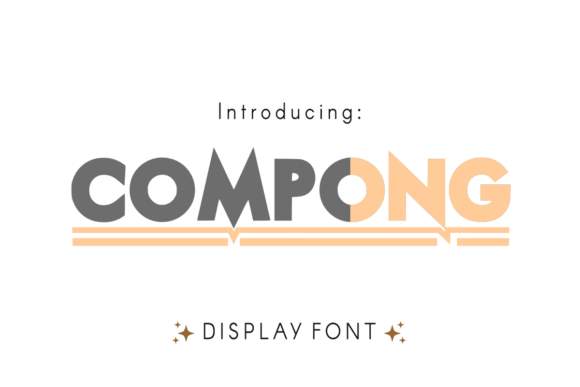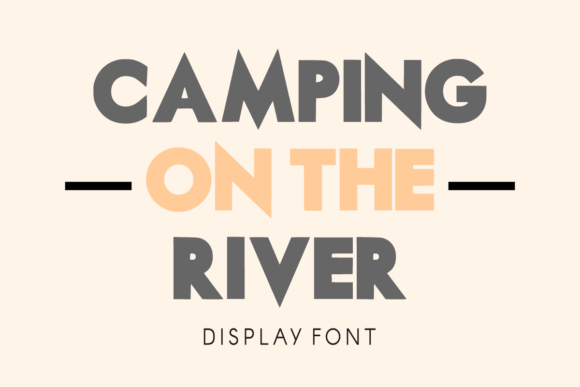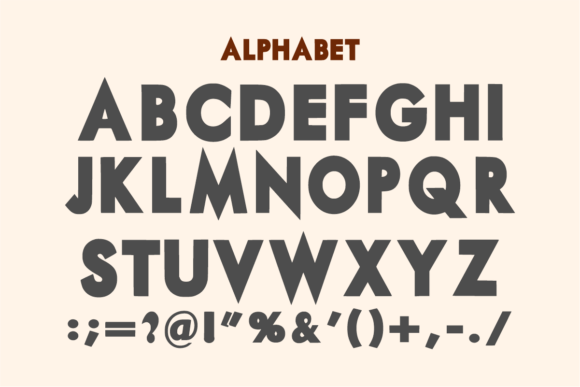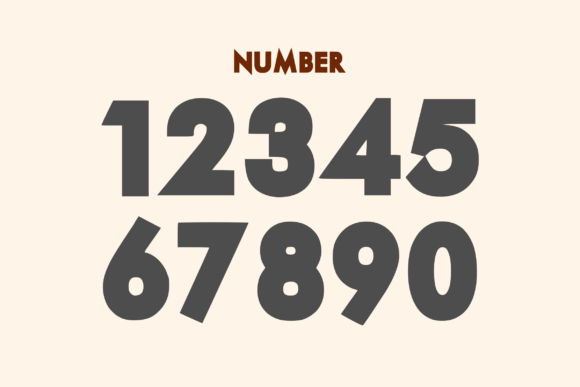
Unlocking the Power of Modern Design with Compong Font
As a designer, there’s that magical moment when a project clicks – the perfect blend of creativity and precision. You envision a stunning logo, a captivating poster, or an eye-catching t-shirt design. That’s where the Compong Font comes in – a game-changing typeface engineered to elevate your creative vision.
This sophisticated font is more than just a design element; it’s a versatile tool that effortlessly adapts to various projects. Whether you’re crafting a corporate logo or designing a fun sticker, Compong Font delivers a memorable impression. Its precision-engineered design makes it a valuable asset for designers, providing endless possibilities for creative expression.
Discover the limitless potential of the Compong Font and unlock a new world of design possibilities.
Compong Font Key Features
- Font Family: Compong is a sans-serif font family designed for modern and minimalist designs. It comes in a range of weights, from light to bold.
- Character Count: The font family includes over 300 glyphs, covering a wide range of languages, including Latin, Cyrillic, and Greek scripts.
- Resolution: Compong Font is optimized for high-resolution displays, making it suitable for use in digital designs, such as websites, mobile apps, and social media.
- Size: The font family includes font sizes ranging from 8pt to 72pt, making it versatile for use in various design contexts.
- Unique Characteristics: Compong Font features a unique, geometric design aesthetic, with clean lines and minimal ornamentation, making it perfect for modern and minimalist designs.
Compong Font Review
Overall, I have mixed feelings about the Compong Font. It’s not a bad choice, but it doesn’t blow me away either. Here are some points to consider:
- It’s modern and sleek, with clean lines and a minimalist aesthetic that would work well for tech and gaming brands.
- The font is highly legible, even at small sizes, making it a good choice for digital interfaces.
- The font family includes a range of weights and styles, giving you a good amount of flexibility in terms of design possibilities.
- The font feels a bit generic, lacking the unique personality that sets some other fonts apart.
- It may not be the best choice for brands that want to stand out in a crowded market or need a font that makes a bold statement.
- The font’s range of weights and styles can be overwhelming, making it difficult to choose the right one for your design.
Overall, the Compong Font is a solid choice for designers who need a clean, modern font that’s easy to read. However, it may not be the best fit for brands that want to make a bold statement or stand out from the crowd.
Compong Font is ideal for creative projects that require a unique, handwritten feel. Some common use cases include:
– Logo design
– Infographics
– Handwritten-style typography
Playfair Display is an elegant, luxurious serif font perfect for creating high-end designs, such as luxury brands or high-end magazines. It features intricate details and a classic feel that’s ideal for headings and titles.
Compared to Compong Font, Playfair Display has a more luxurious and refined feel, making it better suited for high-end designs. Compong Font, on the other hand, has a more modern and minimalist feel.